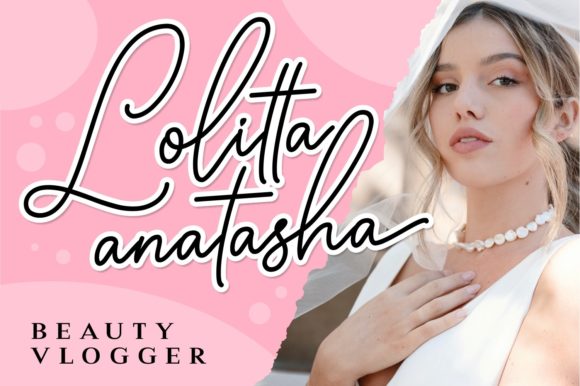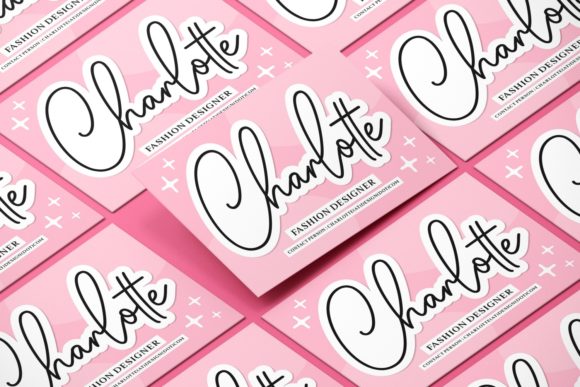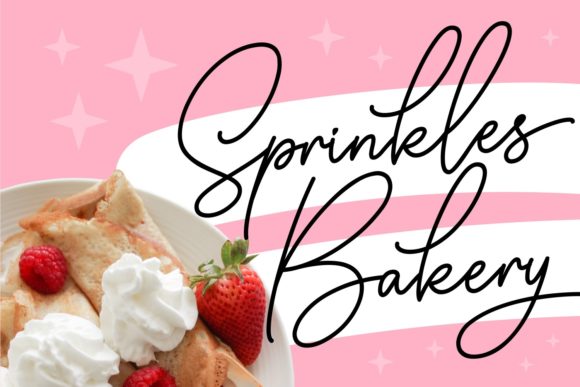
About Babydols Font
Babydols is a lovely and timeless handwritten font. It is the best choice for creating eye catching logos, branding and quotes. This font is PUA encoded which means you can access all glyphs and swashes with ease!